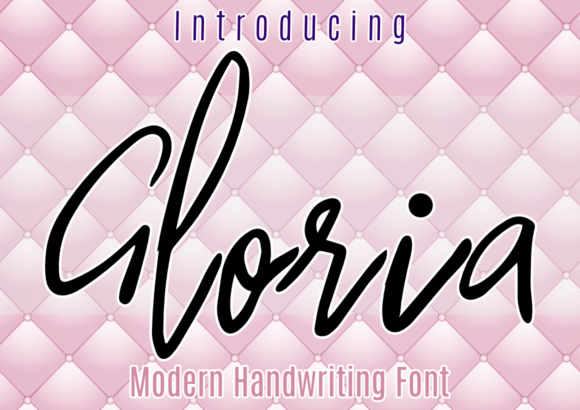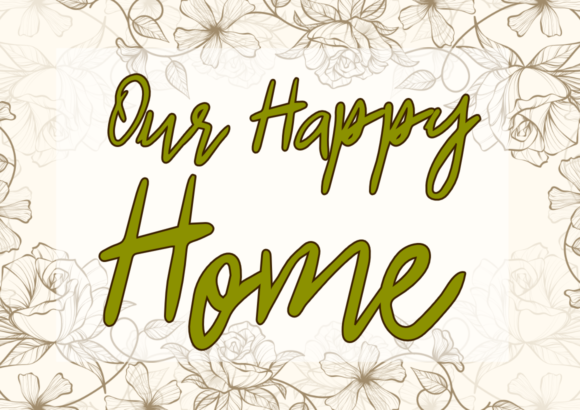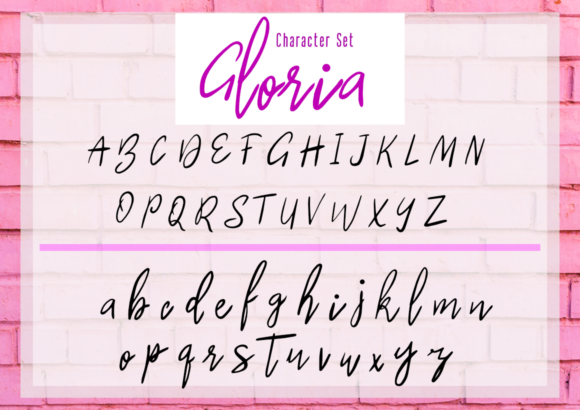
Gloria Font
About Gloria Font
Gloria is a sweet, soft hand-lettered handwritten font.It has a classy, elegant, and modern look that can be used for logos, branding, invitations, stationary, wedding designs, social media posts and much more!